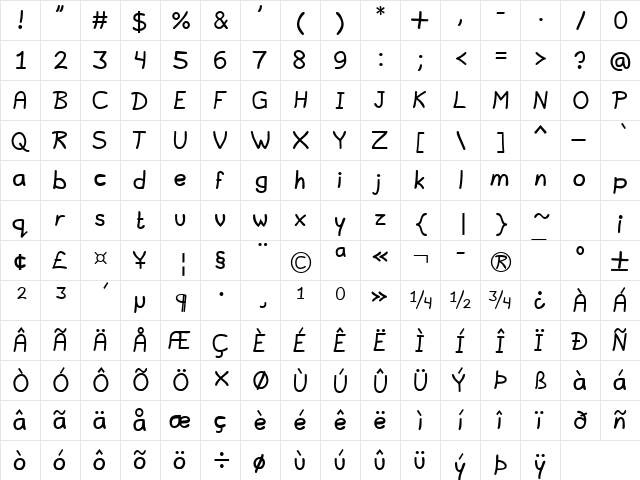
Lavi Regular
| Foundry | Ruben Holthuijsen |
| Designer | Ruben Holthuijsen |
Design Context for Lavi Typeface
Lavi offers clean, dependable letterforms without strong stylistic allegiance, making it a practical choice for designers who need flexibility.